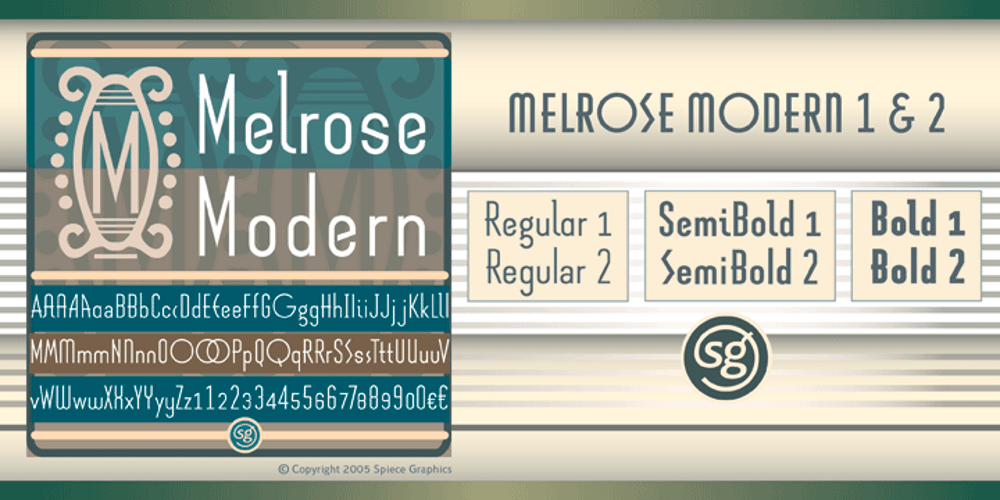
Melrose Modern SG
Melrose Modern SG font
Melrose Modern SG Font Family was designed by Jim Spiece and published by Spiece Graphics. Melrose Modern SG contains 12 styles and family package options. Here’s a tall, narrow, and boxy sans-serif packaged in two exciting flavors—Contemporary and Art Deco. Use Melrose Modern One for those hard-to-fit headlines that require precision, impact, and a bit of style. Go a step further with Melrose Modern Two and create a highly geometric and decorative setting that looks reminiscent of the 20s and 30s. You can try combining characters from Melrose Modern One with Melrose Modern Two to form even more distinctive and interesting titles and headlines. A variety of unusual alternate characters plus a set of tall and short figures are also included for your convenience. Melrose Modern is now available in the OpenType format. Many new features have been added to this OpenType version including Small Caps, Old Style Figures, Swash, and Stylistic Alternates. Advanced features work in current versions of Adobe Creative Suite InDesign, Creative Suite Illustrator, and Quark XPress. Check for OpenType advanced feature support in other applications as it gradually becomes available with upgrades.